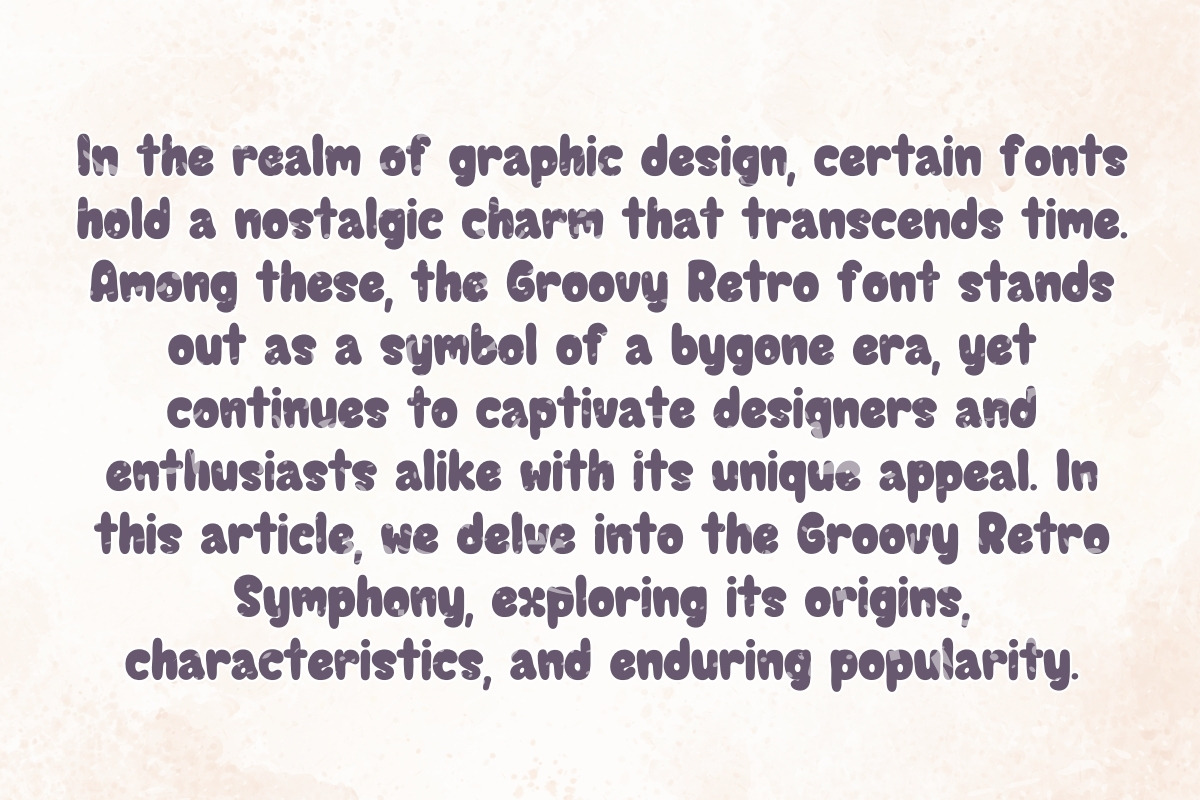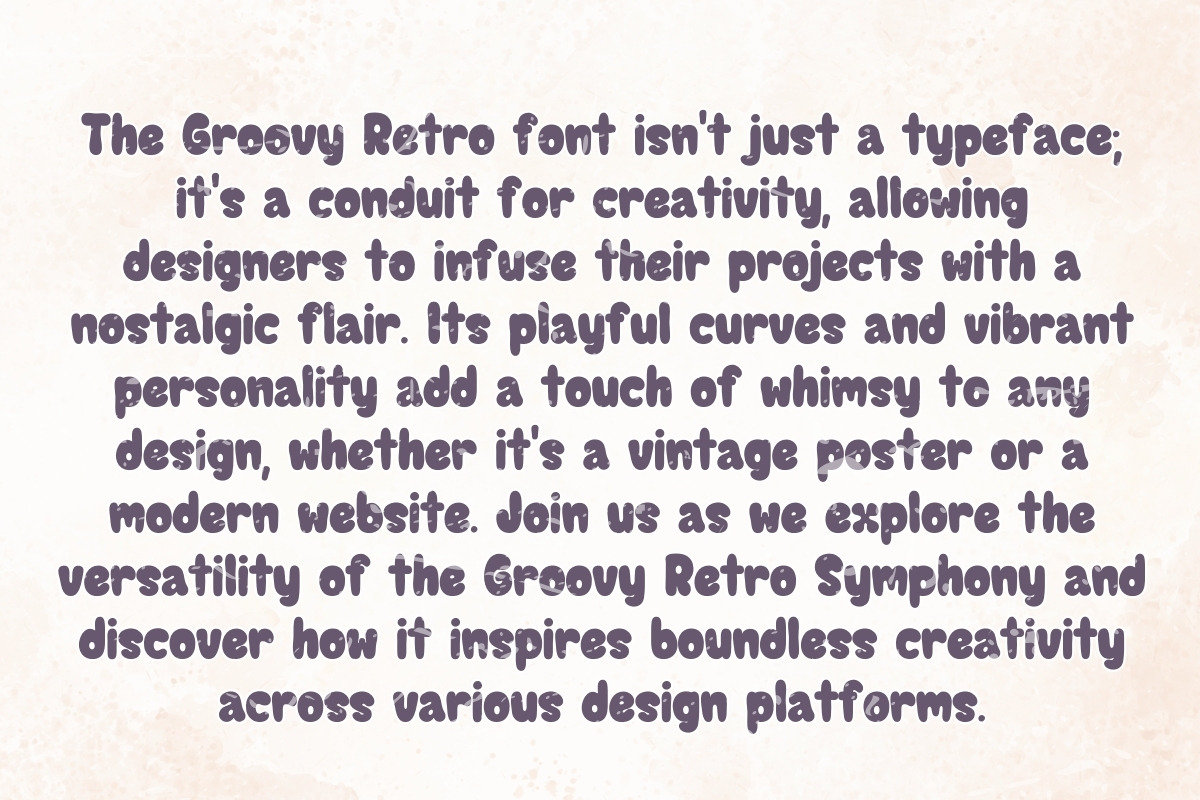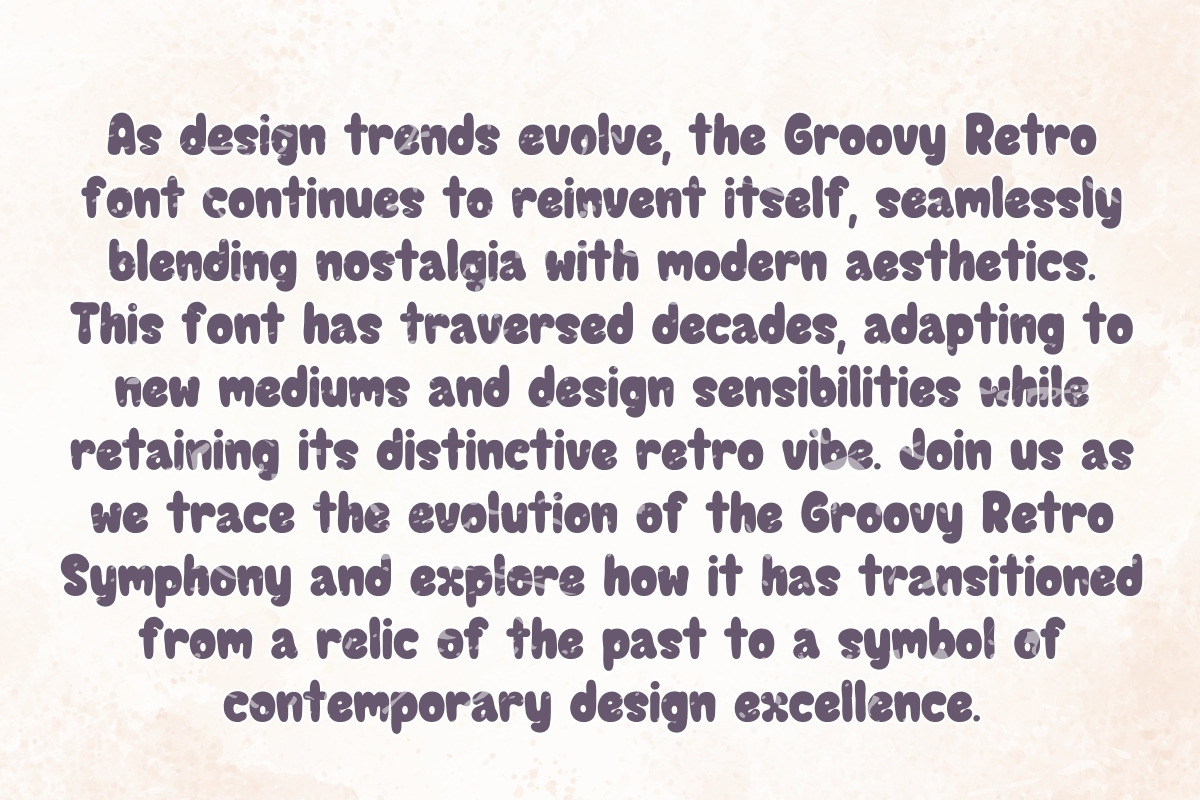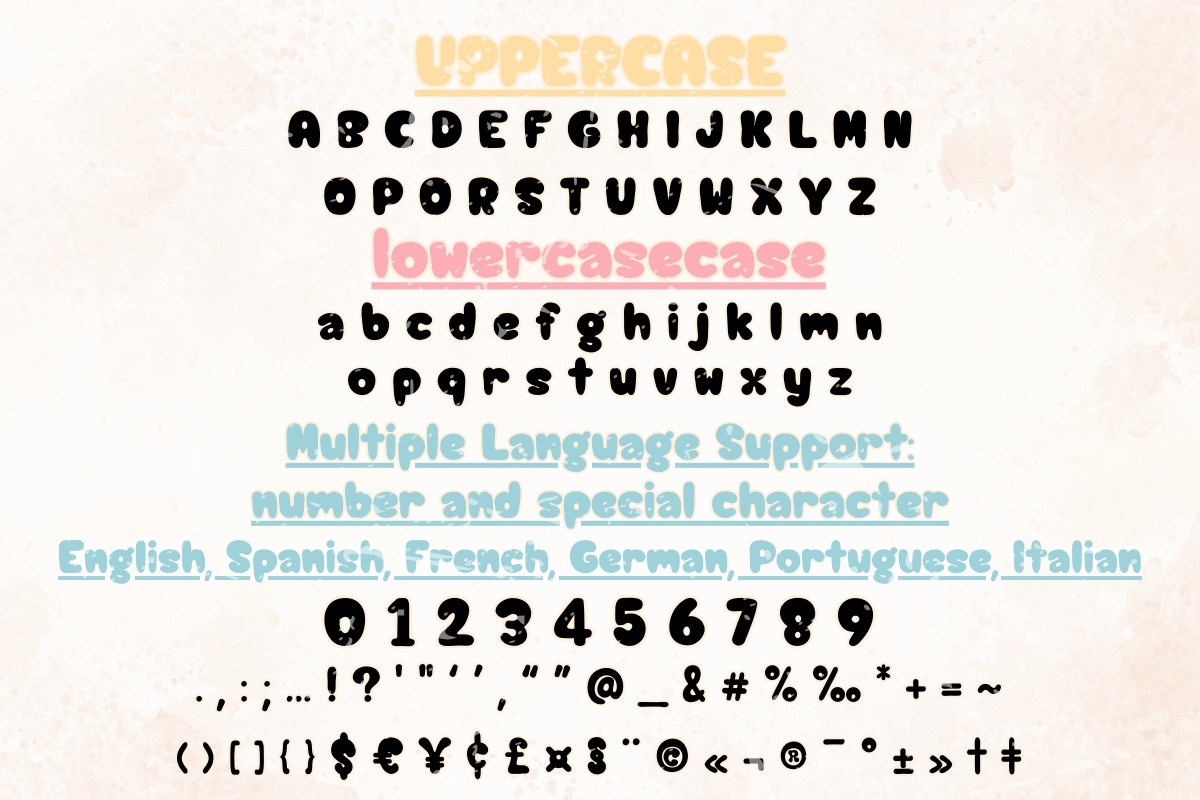
Groovy Retro Symphony - Handwritten
Introducing "Groovy Retro Symphony" - a delightful fusion of nostalgia and elegance, reminiscent of the carefree spirit of the past. This font captures the essence of handwritten charm with its graceful curves and playful strokes. Each letter dances on the page, creating a symphony of style that adds a touch of whimsy to any project.